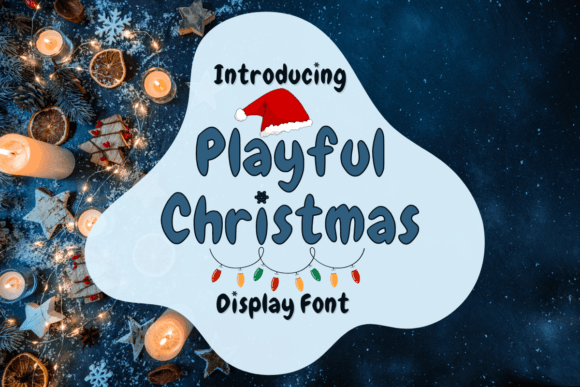
Playful Christmas Font
Presenting "Playful Christmas" – A Festive Font That Makes Your Designs Sparkle!
Embark on a whimsical adventure with "Playful Christmas," a delightful display font that is the epitome of Christmas cheer. Its charming, childish style, adorned with delicate snowflakes, transforms your designs into a winter wonderland. Whether you're creating Christmas cards, festive invitations, or magical social media posts, this font will spread joy wherever it goes.
With its friendly and informal charm, "Playful Christmas" exudes warmth and coziness, evoking the spirit of the Christmas season. It's like a warm, comforting hug on a snowy day, adding a touch of magic to every project. Let your creativity run wild as you explore its potential and watch your designs come alive with Christmas spirit!
Elevate Your Designs to New Heights:
"Playful Christmas" is not just another font; it's a key that unlocks a world of creative possibilities. This font is perfect for adding a unique touch to your Christmas projects, whether you're a seasoned designer or just starting out. Its easy-to-use design makes it a breeze to incorporate into any project, allowing you to create stunning results without hassle.
Let Your Imagination Soar:
With "Playful Christmas" as your creative companion, the possibilities are endless. Design whimsical cards and invitations that capture the magic of the season. Create festive holiday posters that spread cheer wherever they're displayed. Elevate your social media presence with eye-catching posts that sparkle with Christmas spirit.
The Joy of Christmas, Expressed in Every Letter:
Each letter in the "Playful Christmas" font is like a delicate snowflake, carefully crafted to spread joy and warmth. As you type, you'll feel the Christmas spirit flowing through your fingers, transforming your words into works of art. Let the magic of the season infuse your designs and make them a reflection of your festive spirit.
So, what are you waiting for? Dive into the world of "Playful Christmas" and let your creativity shine brighter than ever before. Experience the joy of Christmas with every design you create, and make your projects stand out with a festive touch that captures the hearts of all.